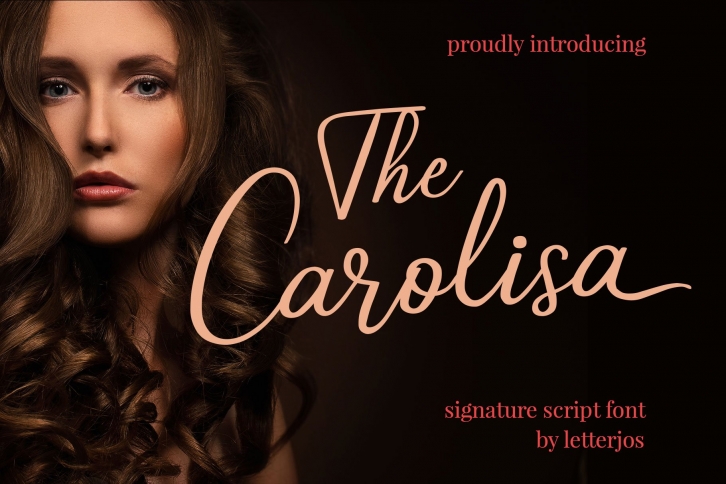
Carolisa is simple, beauty and elegant signature script font with handwritten style. It will be perfect for any signature project. Carolisa script font also easy to pair with another font so, it will make your design greater. Give your business an elegant mark.